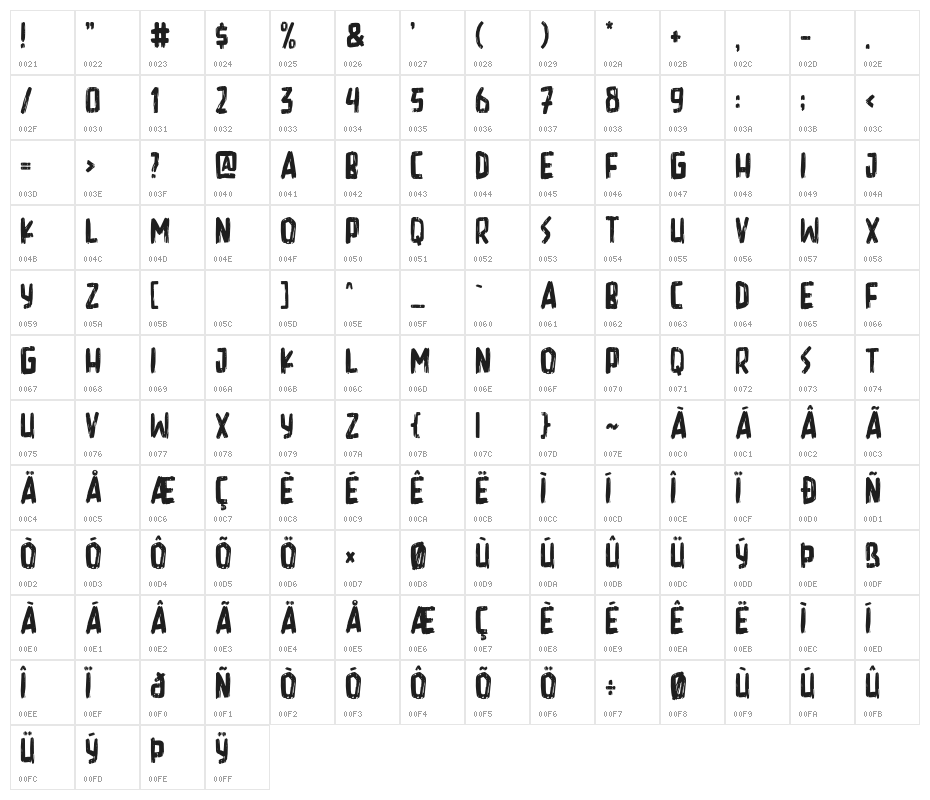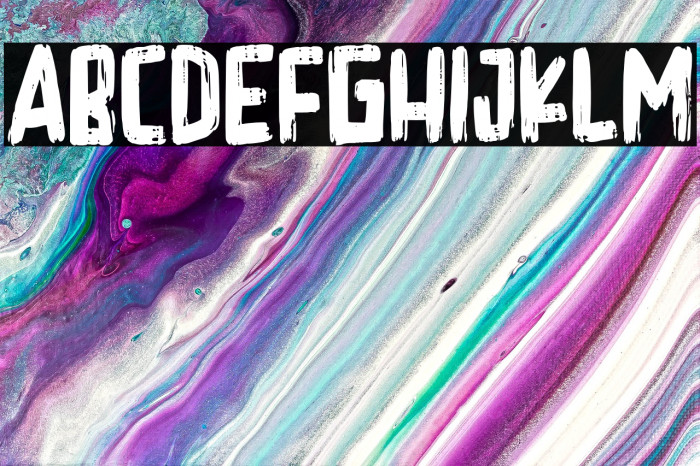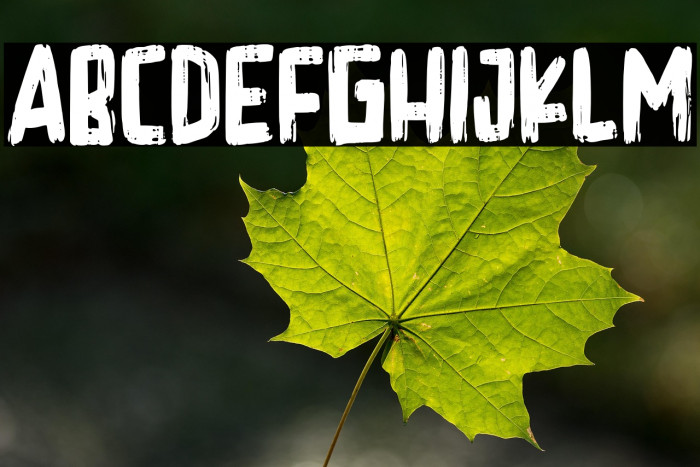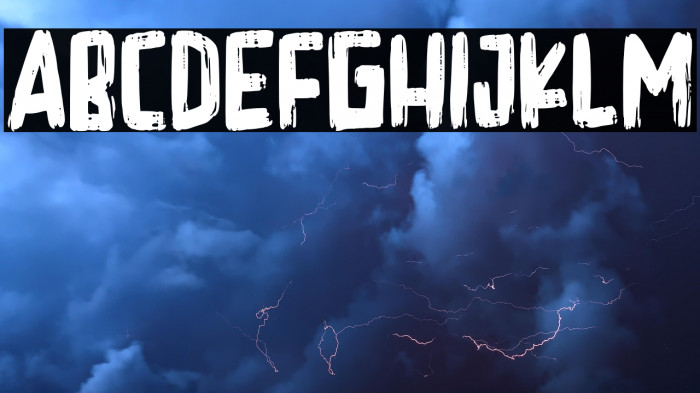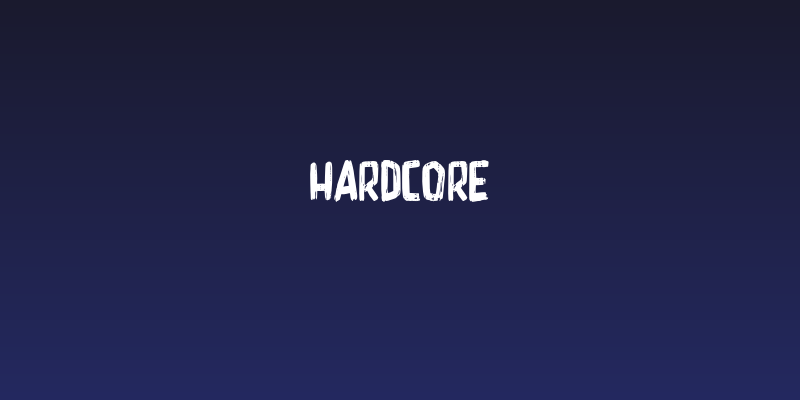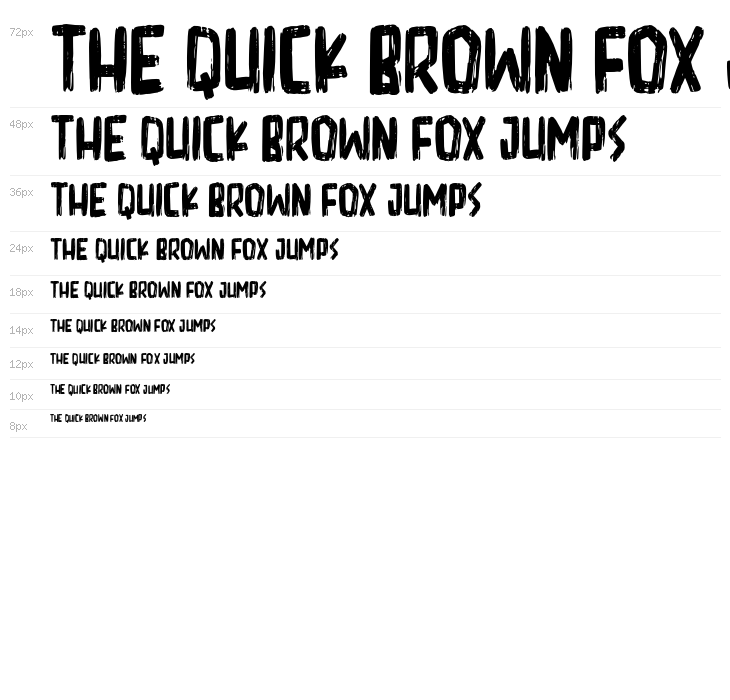
Hardcore Font
Hardcore Description
This font exhibits a bold and rugged style, characterized by its distressed and grungy appearance. The letters have a hand-painted look, with uneven edges and a textured finish that gives it a raw, energetic feel. The uppercase and lowercase letters maintain a consistent height, while the numbers and special characters follow the same distressed aesthetic. This font is visually striking, making it ideal for projects that require a bold statement or a rebellious tone.
| Overall Style | Grunge, Energetic, Raw |
| Proposed Projects | Ideal for music album covers, posters, streetwear branding, and edgy graphic designs. |